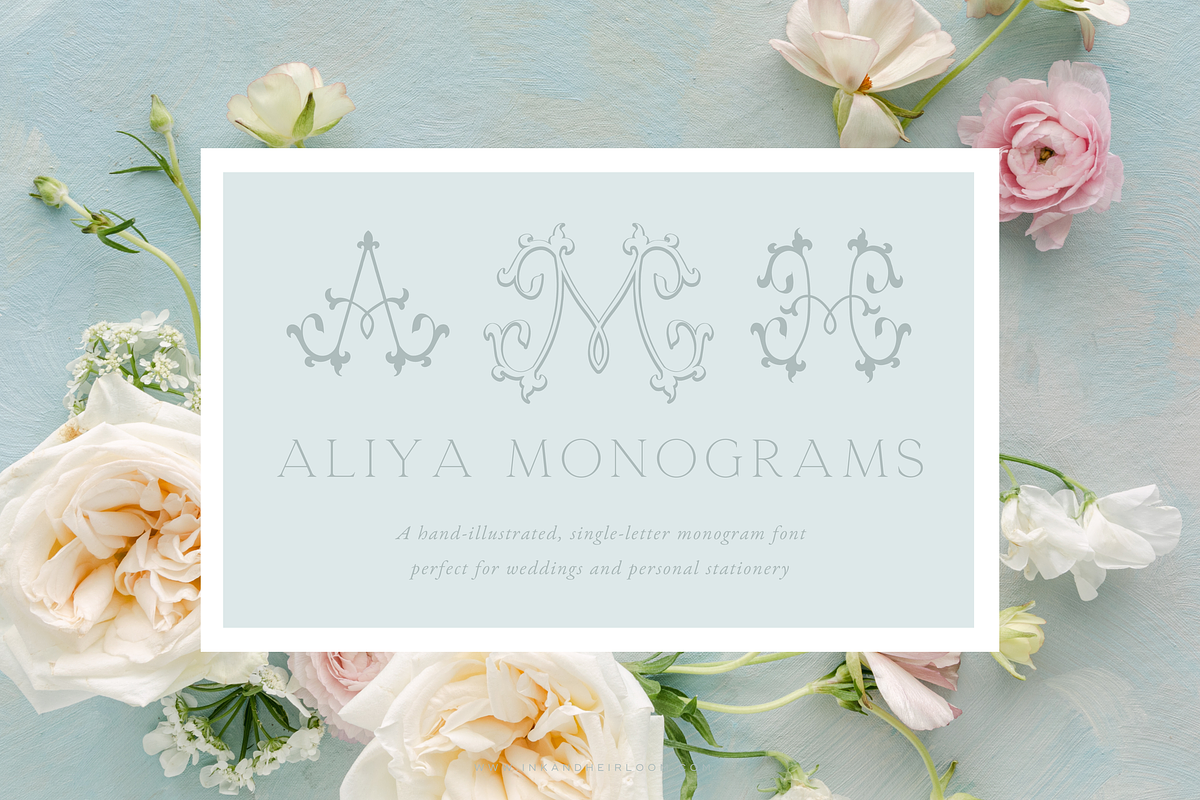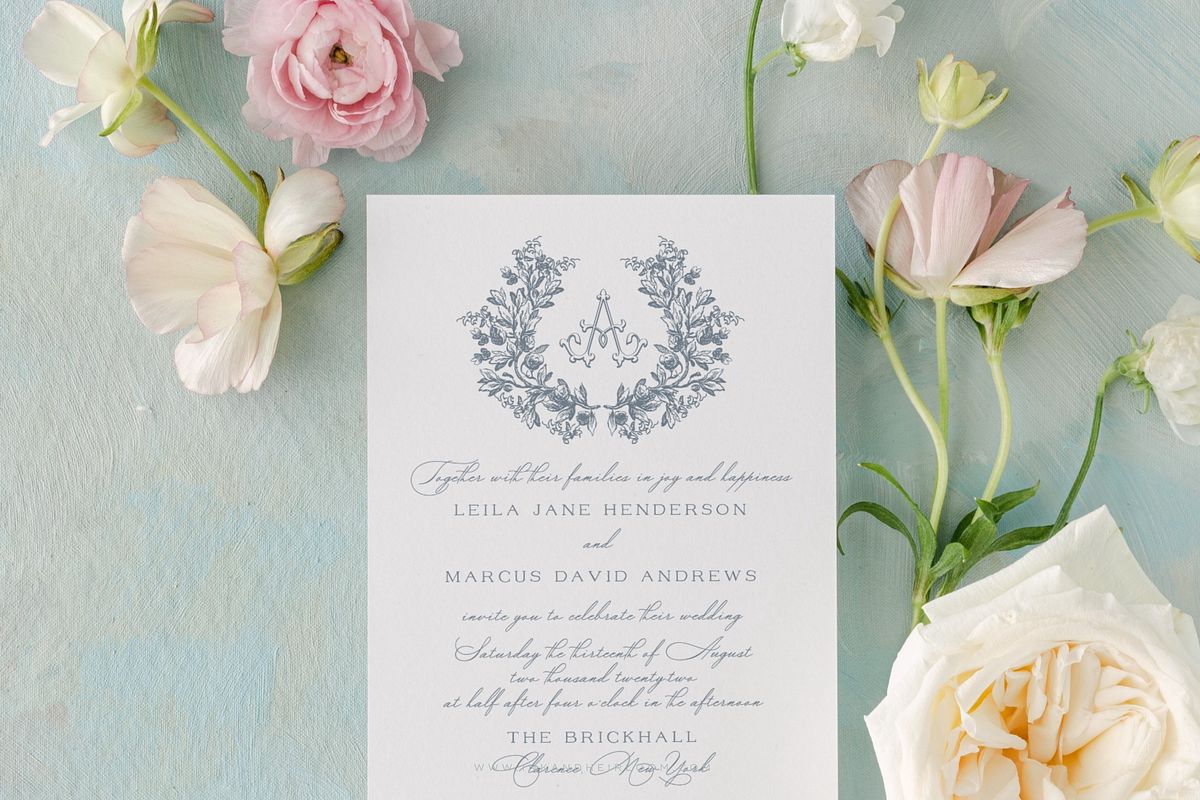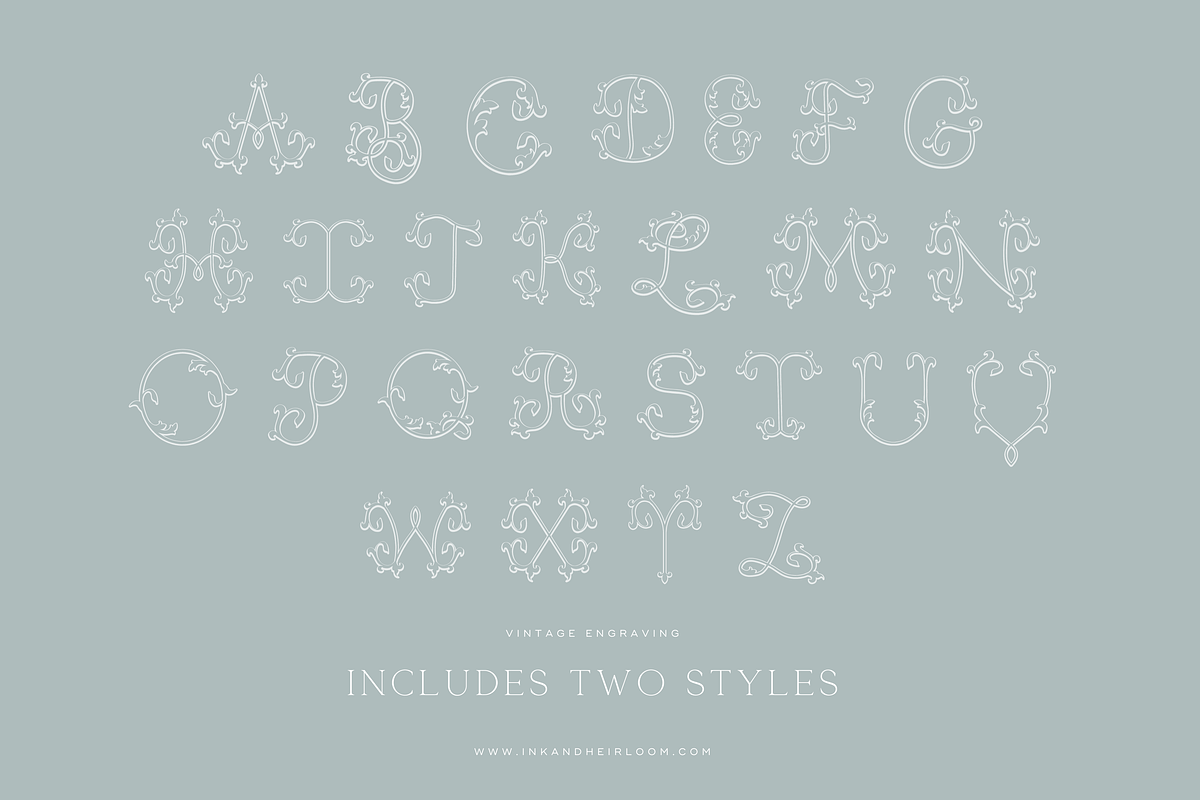
Aliya Monogram Font
Our first official monogram font, Aliya Monograms features elegant vintage style single monograms in two different styles.
Includes two monogram .otf fonts, solid and engraved outline.